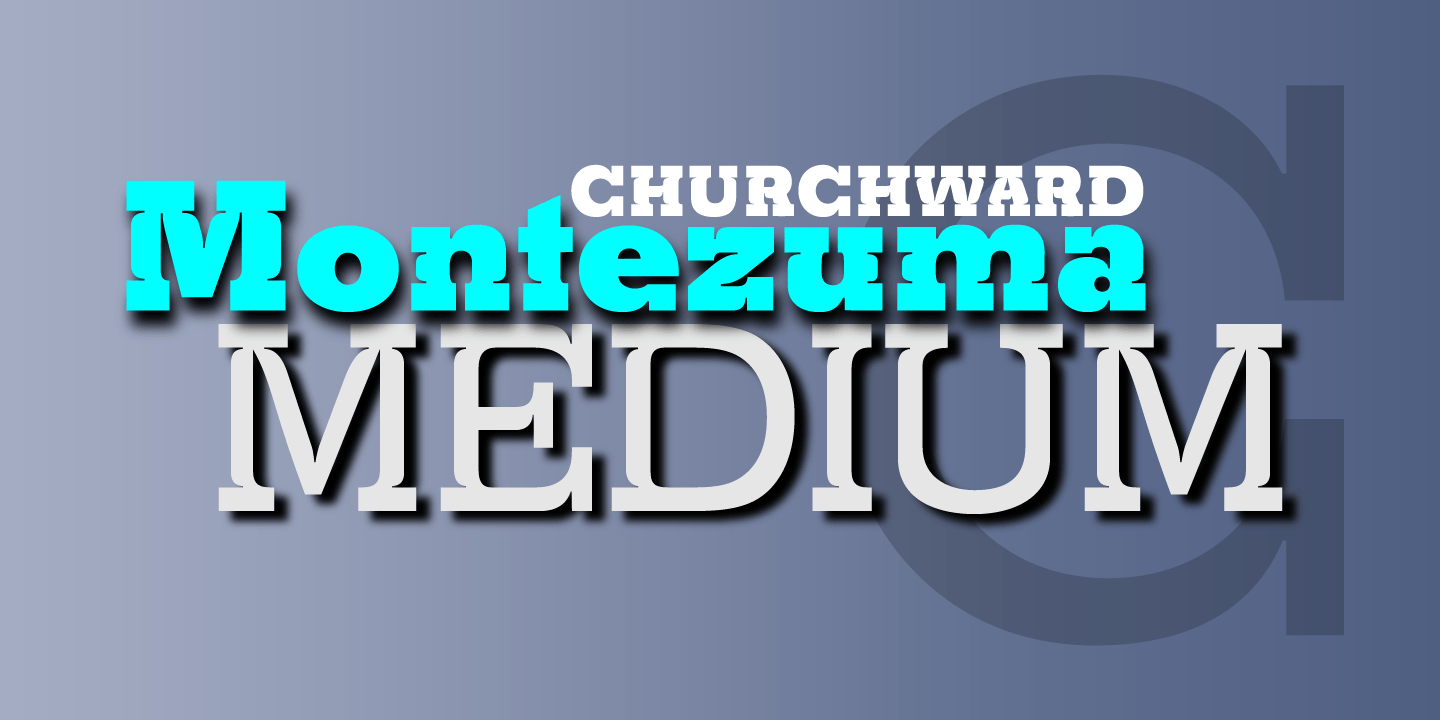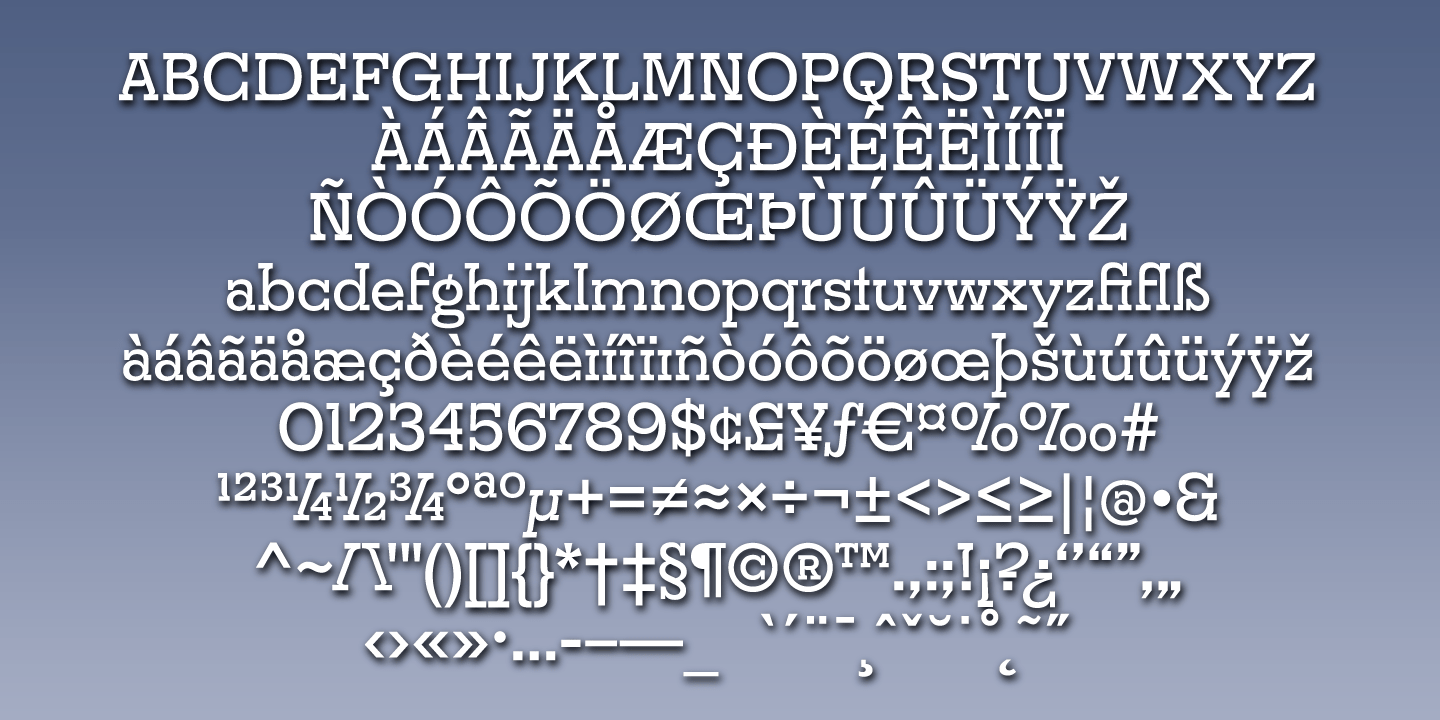
Churchward Montezuma Medium
Churchward Montezuma Medium is an unusual serif design by the late Joseph Churchward and represents the workhorse of the Montezuma Family. The cut-in motif gives this typeface a unique look mostly for display work, but the Medium weight works very well in text runs. Montezuma Medium has an alternate single story lowercase "a", and it supports the Western European character set.